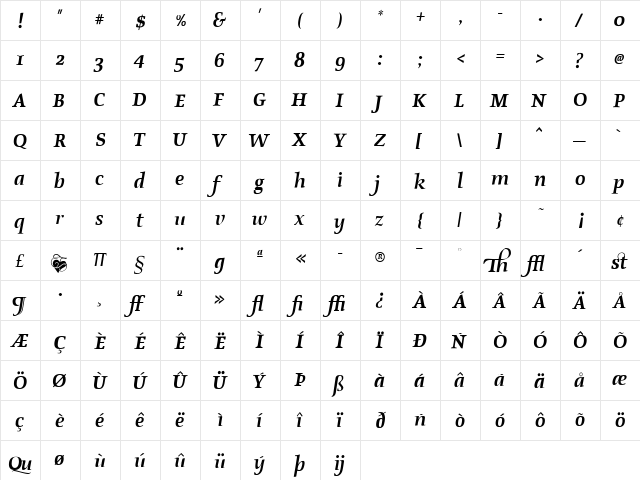
AIProsperaII Bold Italic
Design Context for AIProsperaII Typeface
AIProsperaII takes a measured approach to typography — its balanced proportions and neutral character make it a reliable workhorse for both digital and print work. The dynamic lean of this cut emphasises speed and emphasis in any layout. The heavy weight commands attention and anchors typographic hierarchies.